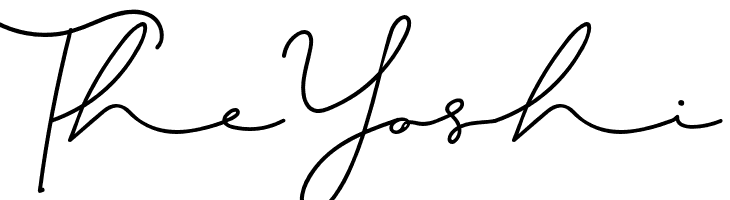
A playful, handwritten script font with consistent loops and a casual aesthetic.
A flowing, cursive font with elegant, sweeping strokes and a natural handwriting style.
A lively and elegant script font with fluid, cursive strokes.